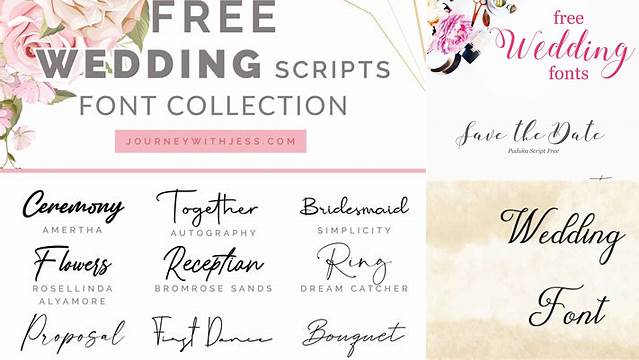
Download Free Wedding Fonts For Photoshop: A Guide
Are you planning a wedding and looking for the perfect fonts to create stunning invitations, save-the-dates, or even personalized signage? Or are you a designer tasked with creating wedding-related materials? Well, you've come to the right place! In this comprehensive guide, we'll explore the world of photoshop wedding fonts free download, offering tips, resources, and inspiration to help you find the ideal typography for your special occasion. Choosing the right font is crucial. It's like the dress code for your wedding's visual identity, setting the tone and conveying the overall style. Imagine using a playful, cartoonish font for a formal black-tie affair – it just wouldn't fit! Similarly, a stuffy, traditional serif might feel out of place for a relaxed, bohemian celebration. Therefore, let's dive deep into the world of fonts and find the perfect match for your dream wedding.
Why Fonts Matter for Your Wedding
When it comes to wedding design, fonts play a pivotal role in setting the mood and style. They're not just about readability; they're about conveying emotion and personality. Think of your wedding invitations as the first impression guests will have of your big day. The font you choose will communicate whether it's a classic and elegant affair, a rustic and romantic gathering, or a modern and minimalist celebration. For instance, elegant script fonts like Calligraphy or Brush Script evoke a sense of timeless romance and sophistication, perfect for traditional weddings. On the other hand, clean and modern sans-serif fonts like Helvetica or Arial can create a chic and contemporary feel, ideal for minimalist or modern weddings. Rustic or vintage-themed weddings might benefit from fonts with a hand-lettered or slightly distressed appearance, such as Amatic SC or Bebas Neue. These fonts add a touch of warmth and character, perfectly complementing a more relaxed and informal atmosphere. Beyond invitations, fonts are essential for various other wedding-related materials, including save-the-dates, place cards, menus, signage, and even your wedding website. Consistency in font choice across all these elements helps create a cohesive and polished look, reinforcing your wedding's overall theme and style. Remember, your fonts are part of your visual storytelling. They help communicate your vision and create a lasting impression on your guests. So, take your time, explore your options, and choose fonts that truly reflect your unique style and the magic of your special day. It's about finding fonts that speak to you as a couple and tell your love story in a visual form.
Where to Find Free Wedding Fonts for Photoshop
Tips for Choosing the Perfect Wedding Fonts
Choosing the perfect fonts for your wedding can feel like a daunting task, but don't worry, we're here to break it down. It's not just about picking something pretty; it's about selecting fonts that align with your wedding's overall aesthetic and ensure readability. Think of it as choosing the right ingredients for a delicious recipe – each font contributes to the final flavor. Firstly, consider your wedding style. Is it a formal ballroom affair or a rustic barn celebration? Your fonts should reflect this. Elegant scripts and classic serifs often suit traditional weddings, while sans-serifs and modern calligraphy can work wonders for contemporary or minimalist themes. Rustic weddings might call for hand-lettered fonts or those with a vintage feel. Next, think about font pairings. Just like a well-coordinated outfit, fonts often look best when paired thoughtfully. A common approach is to combine a script or decorative font for headings with a simple and legible serif or sans-serif for body text. This creates a visual hierarchy and ensures your invitations and other materials are easy to read. For example, you could pair a flowing script font like Great Vibes for your names with a clean sans-serif like Open Sans for the details. Or, you might use a classic serif like Times New Roman for the body text and a more ornate serif like Playfair Display for headings. The key is to choose fonts that complement each other without clashing. Avoid using too many different fonts – stick to a maximum of two or three to maintain a cohesive look. Readability is paramount, especially for crucial information like dates, times, and locations. While those swirly, elaborate fonts can look gorgeous, they might not be the best choice for body text. Opt for fonts that are clear and easy to read at different sizes. Print out samples of your designs with the chosen fonts to see how they look in physical form. This will help you catch any readability issues before you commit to printing hundreds of invitations. Finally, don't be afraid to experiment and have fun! Try out different font combinations, play with sizes and weights, and see what feels right for your wedding. There are no hard and fast rules – it's about finding fonts that reflect your personal style and the unique spirit of your celebration. Consider the overall color palette of your wedding as well. Fonts in darker shades can convey elegance and formality, while lighter shades might suggest a more casual and airy vibe. The contrast between the font color and the background is also crucial for readability. Make sure the text stands out clearly against the background color. Remember, your fonts are part of your wedding's visual story. They should communicate your style, enhance readability, and create a lasting impression on your guests. So, take your time, explore your options, and choose fonts that truly speak to you.
Conclusion: Your Dream Wedding Fonts Await
So, there you have it, a comprehensive guide to finding and using photoshop wedding fonts free download. From understanding the importance of fonts in setting the mood and style of your wedding to exploring the best resources for free fonts and learning how to install them in Photoshop, we've covered all the essentials. Remember, choosing the right fonts is an integral part of creating a cohesive and visually appealing wedding aesthetic. Your fonts communicate your style, enhance readability, and create a lasting impression on your guests. Whether you opt for elegant scripts, modern sans-serifs, or rustic hand-lettered fonts, the key is to choose fonts that reflect your personal taste and the unique spirit of your celebration. Don't be afraid to experiment with different font pairings, sizes, and styles to find the perfect combination. Consider your wedding theme, color palette, and the overall message you want to convey. And don't forget to prioritize readability, especially for essential information like dates, times, and locations. While free fonts can be a fantastic resource, it's essential to be aware of their potential limitations and licensing restrictions. Premium fonts offer a higher level of quality, flexibility, and peace of mind, but they come with a cost. Weigh the pros and cons and choose the fonts that best fit your budget and design needs. Ultimately, the goal is to create wedding designs that you love and that truly capture the magic of your special day. Whether you're designing invitations, save-the-dates, place cards, or signage, your fonts will play a crucial role in bringing your vision to life. So, go ahead, explore the vast world of wedding fonts, unleash your creativity, and create designs that are as beautiful and unique as your love story. Your dream wedding fonts await, guys! Happy designing!